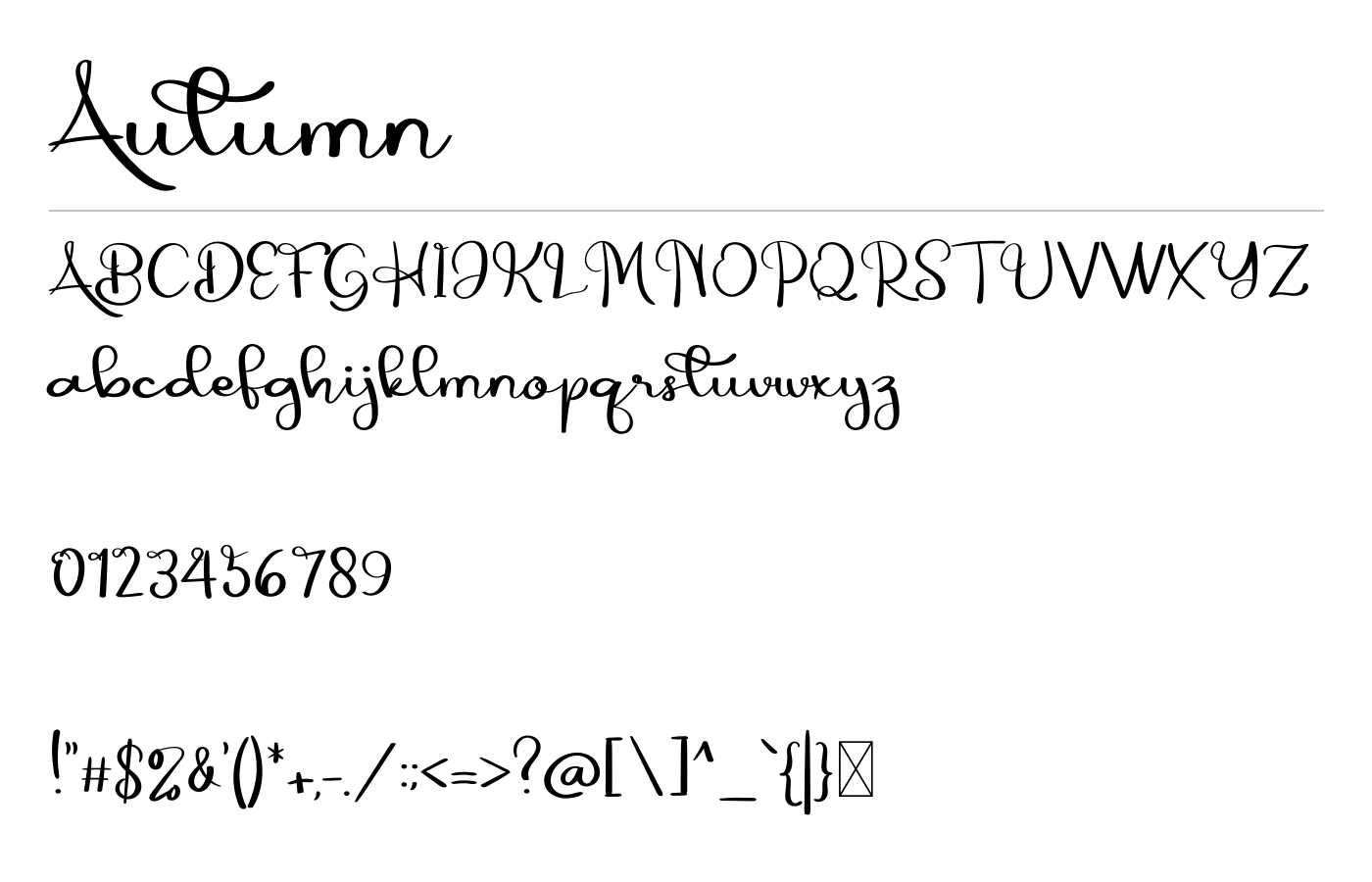
Autumn Font is an elegant, flowing script typeface characterized by its playful and whimsical strokes. With delicate, smooth lines and a charming handwritten feel, it brings a warm, friendly personality ideal for creative branding, invitations, and decorative uses. Its graceful letterforms make it perfect for projects that seek a personal and stylish touch.
Autumn Font